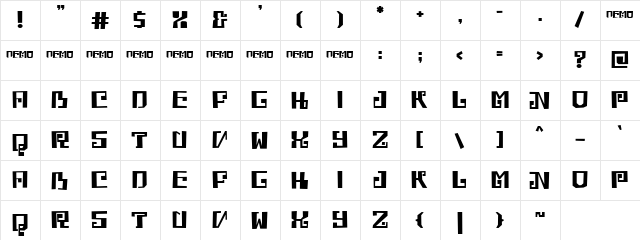
Phataya demo Regular
| Foundry | Sahirul Iman, Semarang, alexatype |
| Designer | Sahirul Iman, Semarang |
Design Context for Phataya demo Typeface
Phataya demo is a composed and adaptable typeface that performs quietly and consistently across a wide range of design contexts.